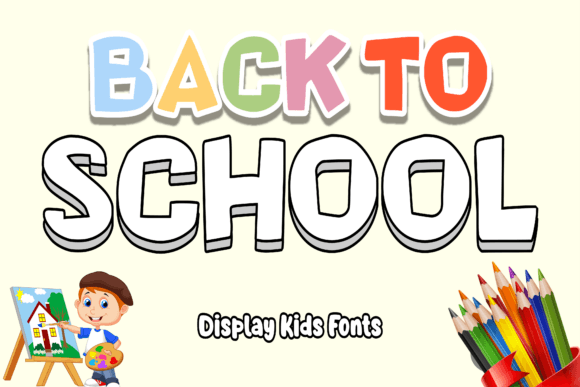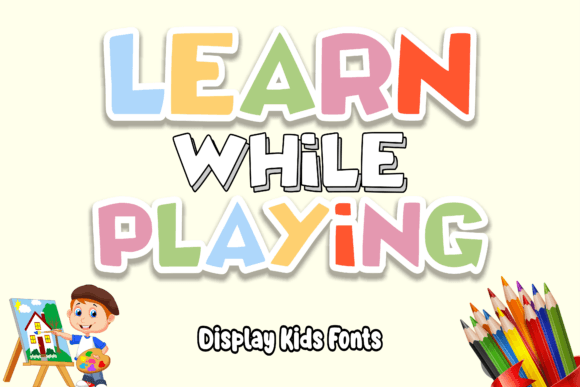
Unleash Your Creativity with the Perfect Font
Have you ever found yourself scribbling in a notebook, lost in a world of imagination, with a bright smile on your face? The simple act of creating can be incredibly therapeutic, and the right font can elevate that experience to a whole new level. That’s where the Coloring Book Font comes in – a cheerful and vibrant font designed to bring joy to your projects.
Whether you’re a seasoned designer or a hobbyist, the Coloring Book Font offers the perfect blend of fun and functionality. Its playful style makes it an ideal choice for a variety of creative endeavors, from posters and stickers to comics and more. With this font, you can add a pop of color and imagination to your designs, making them truly unforgettable.
Key Features of Coloring Book Font
- Unique Characteristics: Coloring Book Font features a unique, hand-drawn design with intricate details and textures, making it perfect for children’s books, educational materials, and creative projects.
Review of Coloring Book Font
Coloring Book Font is a playful and whimsical typeface designed for those who love adding a splash of color to their designs. ✨ I appreciate the font’s versatility and the numerous color combinations it offers, making it perfect for creating visually appealing illustrations and graphics.
The font’s design is simple yet effective, allowing users to easily create intricate and detailed artwork. ✨ I also like how the font includes various customization options, such as line width, pattern fill, and texture, which enable users to add depth and visual interest to their designs.
While Coloring Book Font is a great tool for creating colorful designs, it does have some limitations. ⚠️ For instance, the font may not be suitable for text-heavy designs, as the color variations can make the text difficult to read. Additionally, some users may find the customization options overwhelming, which can lead to a cluttered and busy design.
- Not suitable for text-heavy designs
- Customization options can be overwhelming
- May not be ideal for professional or formal designs
Overall, Coloring Book Font is a fun and creative tool that’s perfect for those who want to add a pop of color to their designs. However, it’s essential to use it judiciously and in the right context to avoid potential drawbacks.
Use Coloring Book Font for children’s book illustrations, educational materials, and craft projects.